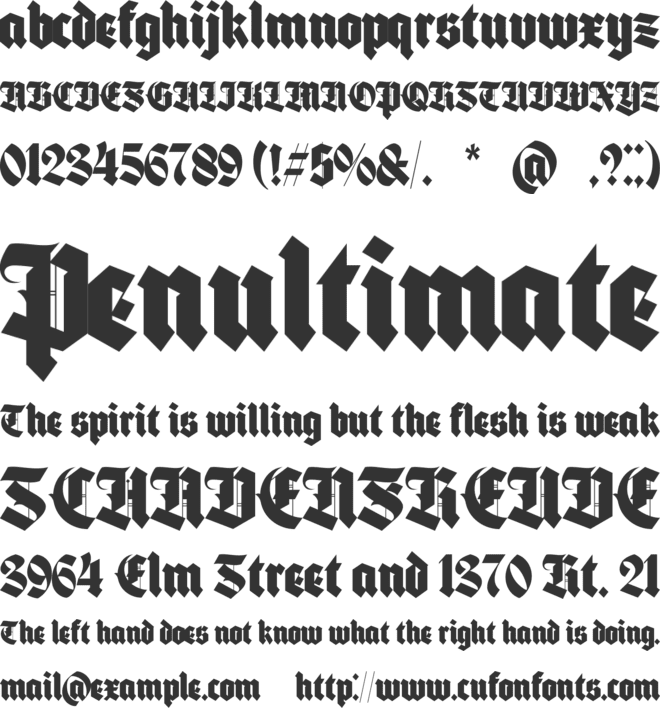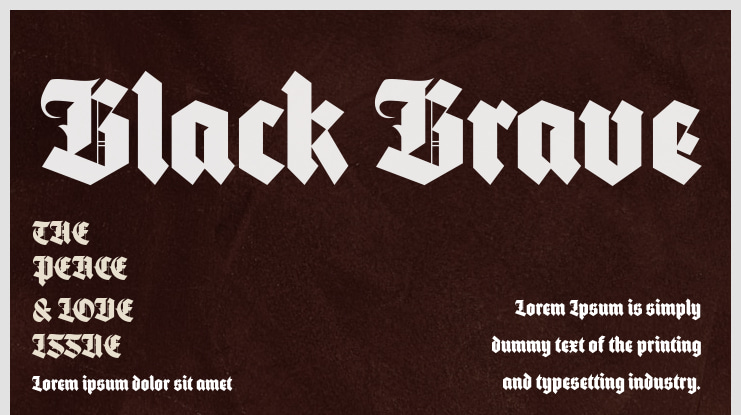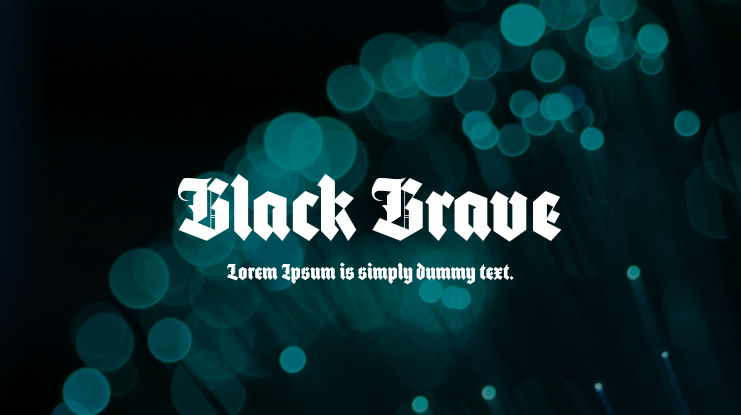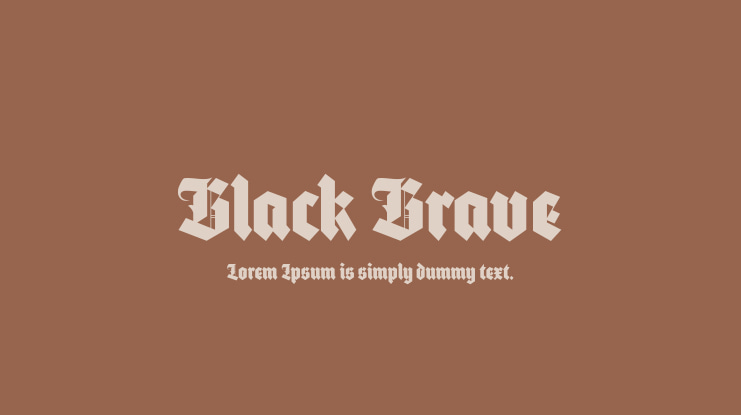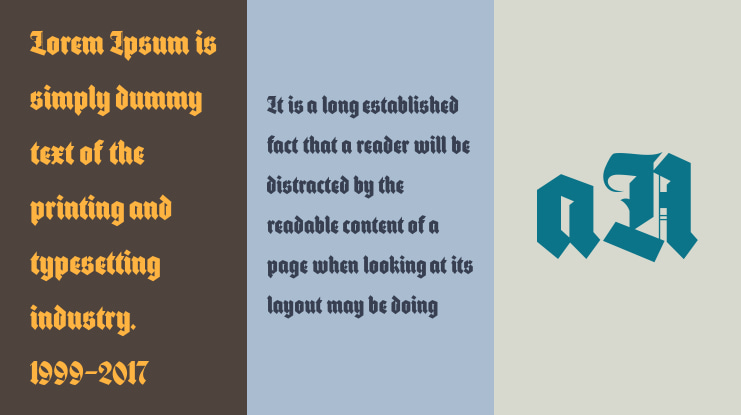
Black Brave Font
Introducing Black Brave – a bold and commanding blackletter font designed to make your text stand out with its striking presence. Inspired by medieval calligraphy and infused with a modern twist, Black Brave exudes strength, elegance, and a touch of vintage charm. With its intricate details, swashes, ligatures, and alternative characters, this font offers endless possibilities for creating captivating designs.